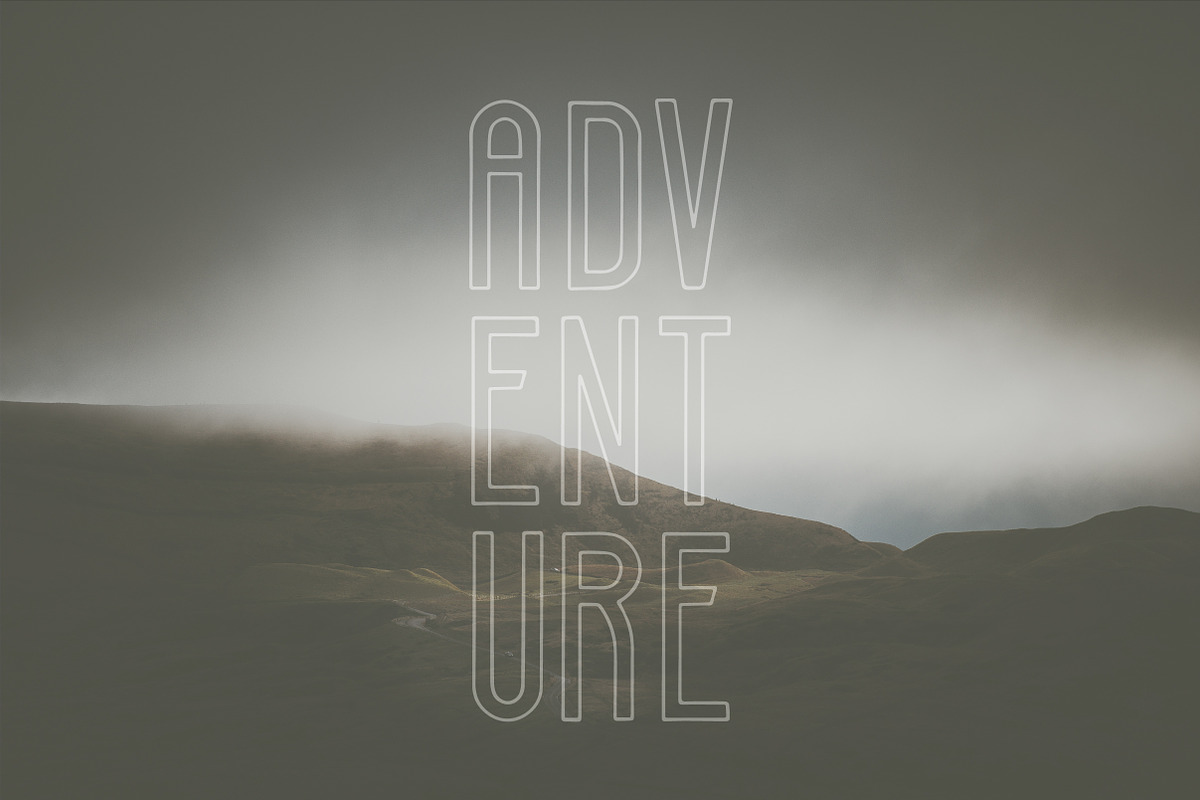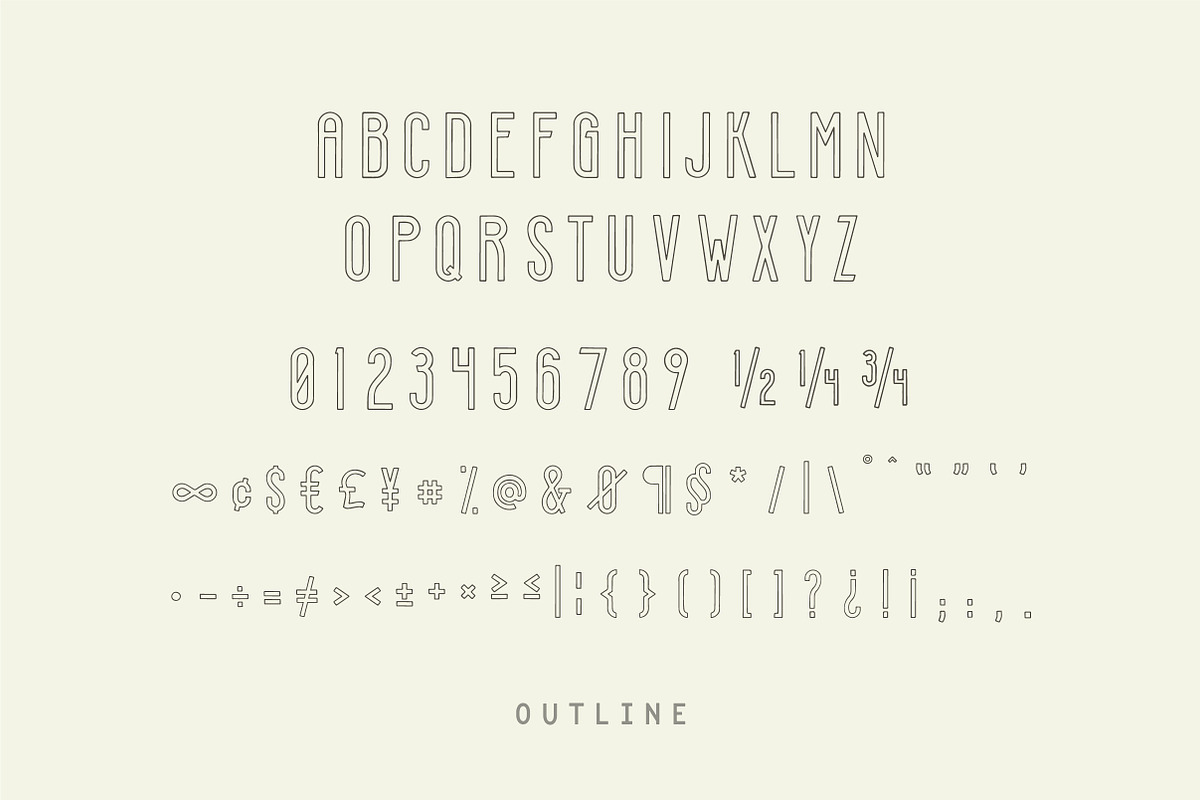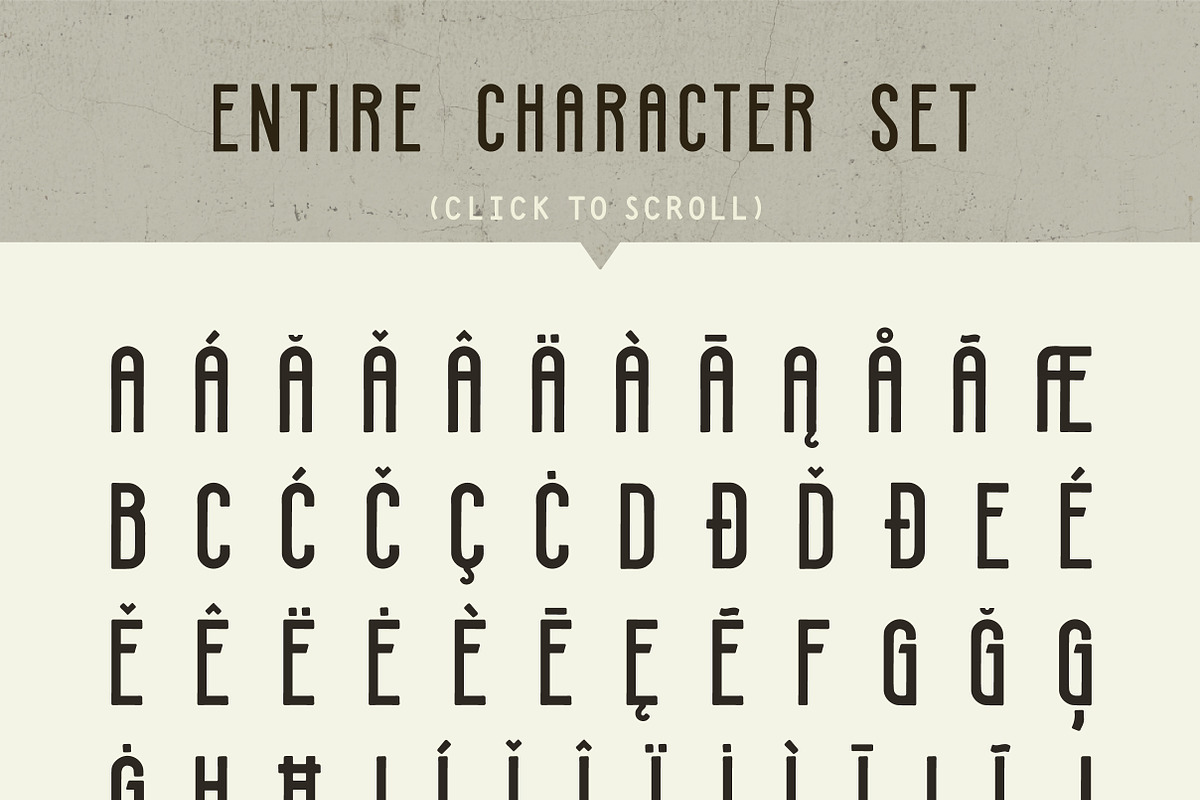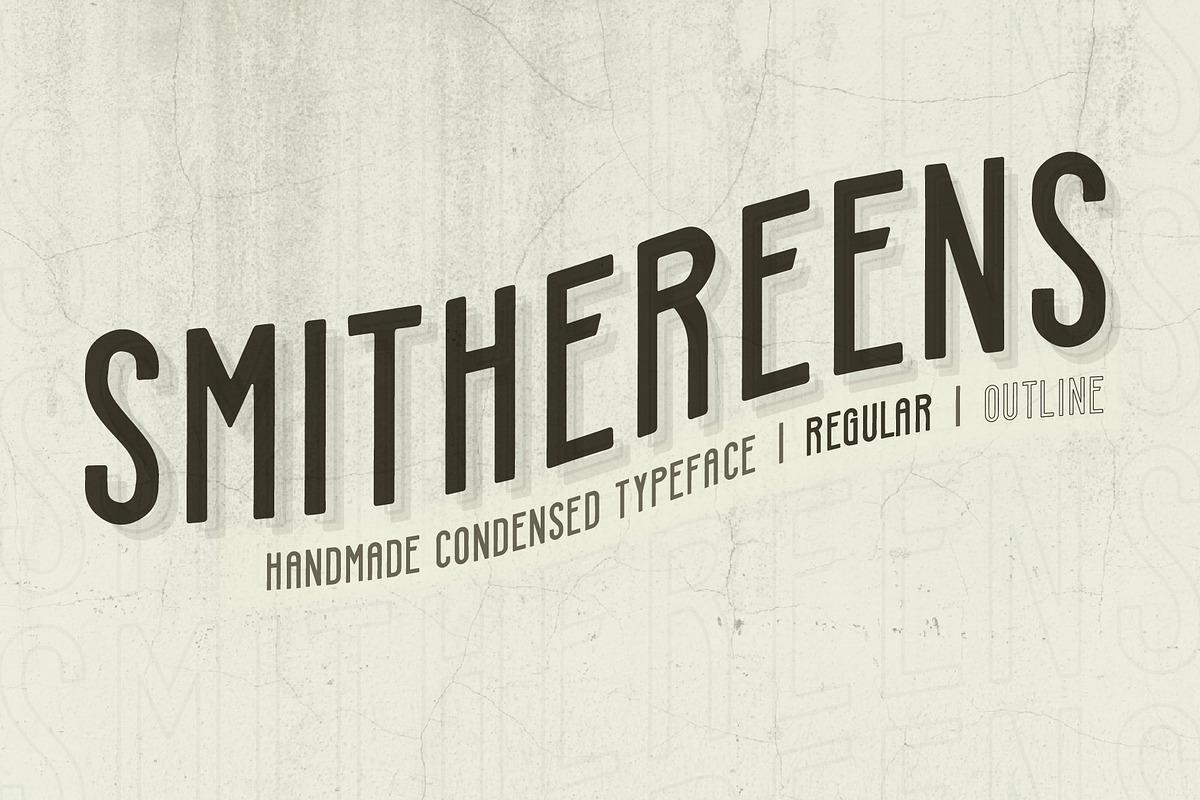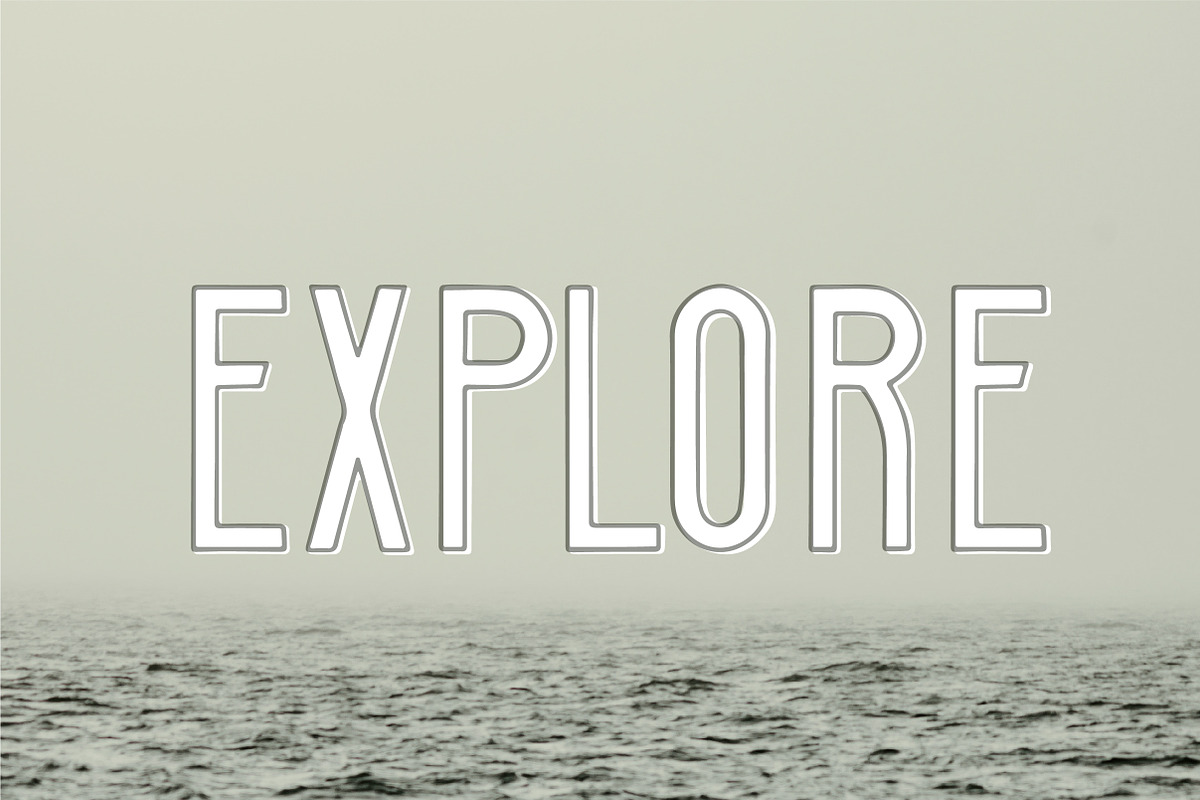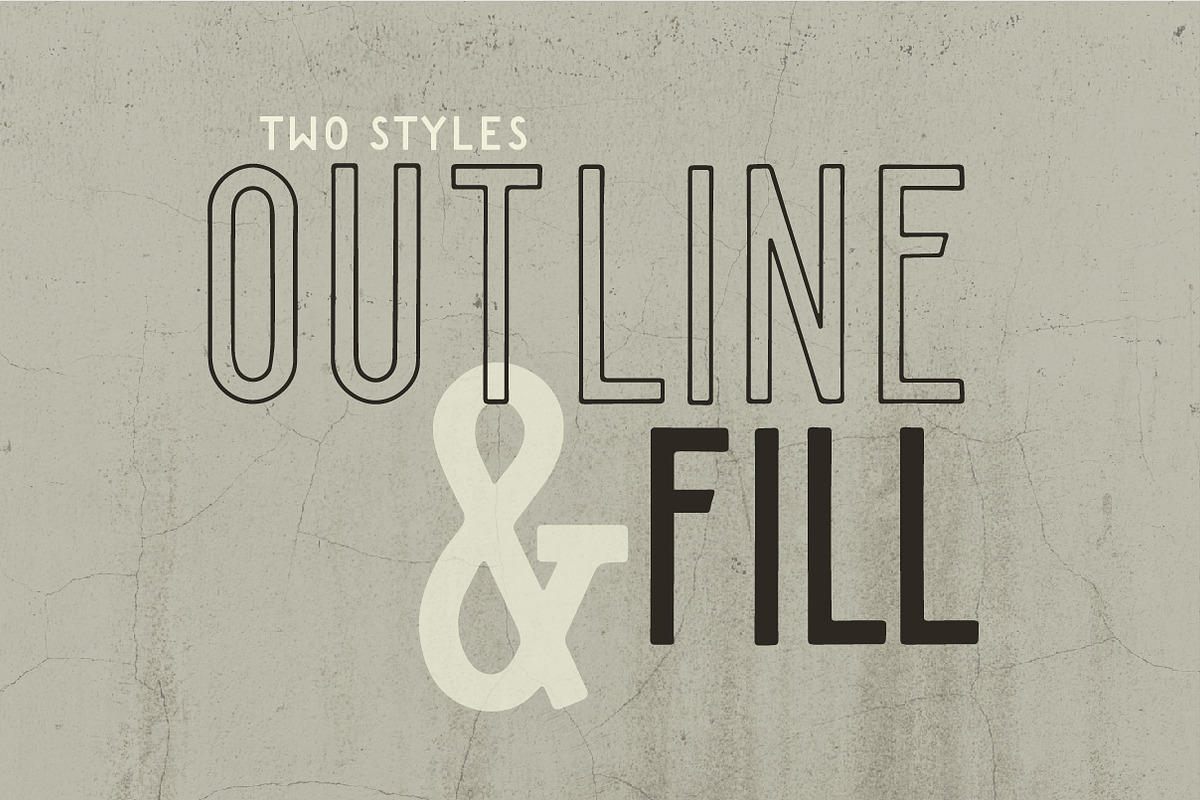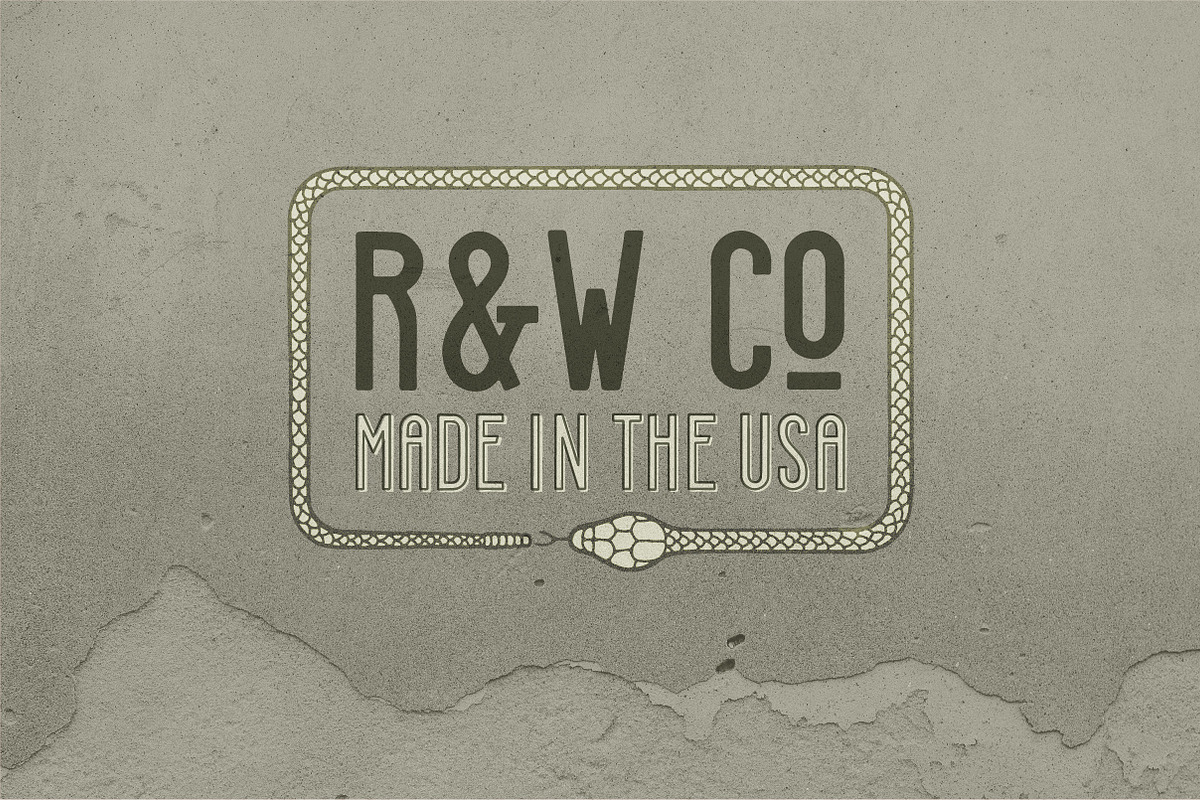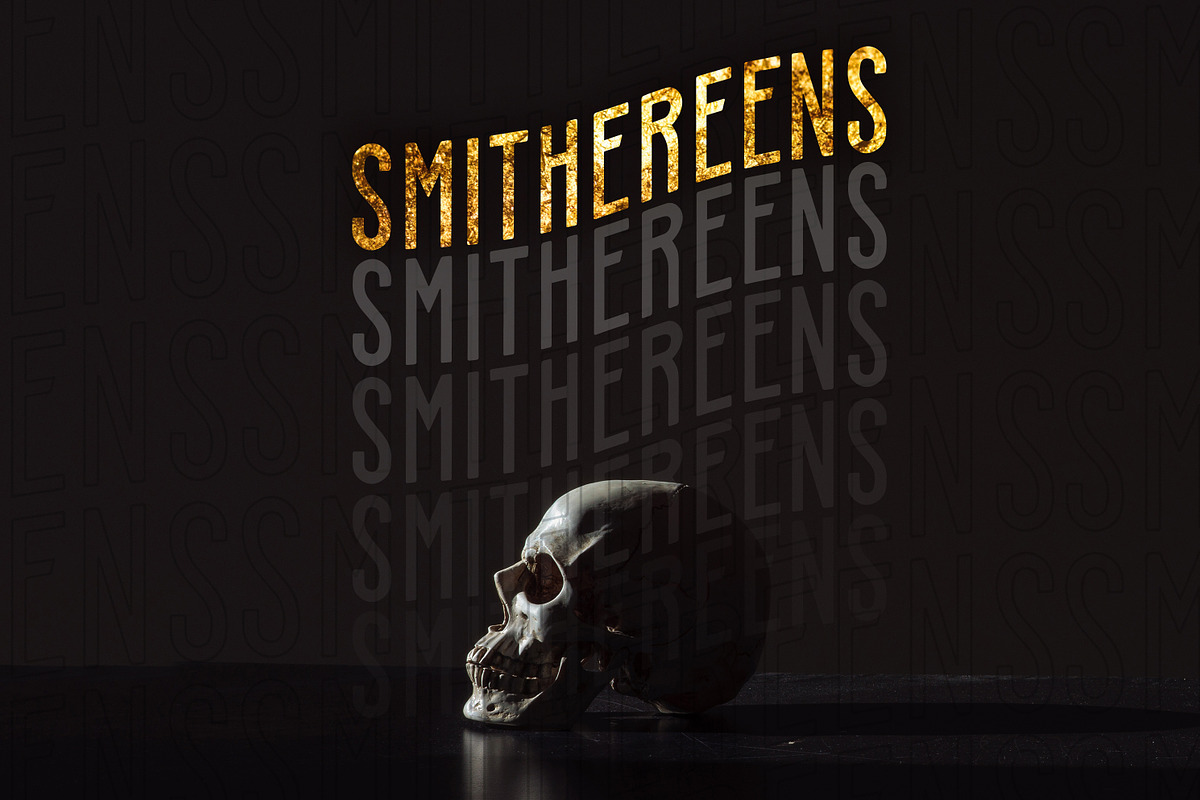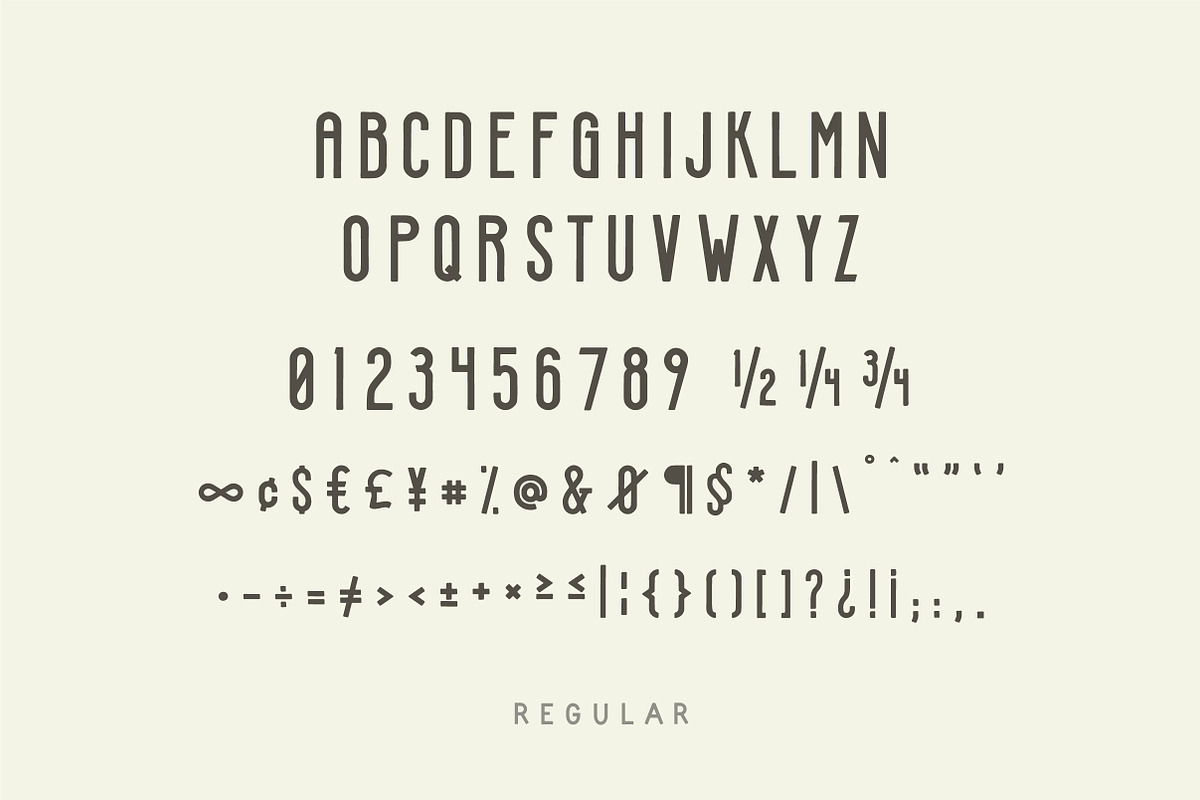
Smithereens
Smithereens is a handmade condensed sans serif typeface. This all-caps typeface includes two styles, Outline and Fill, and makes a great compliment to photography and Illustrations, but also stands strong in vintage logo lockups.